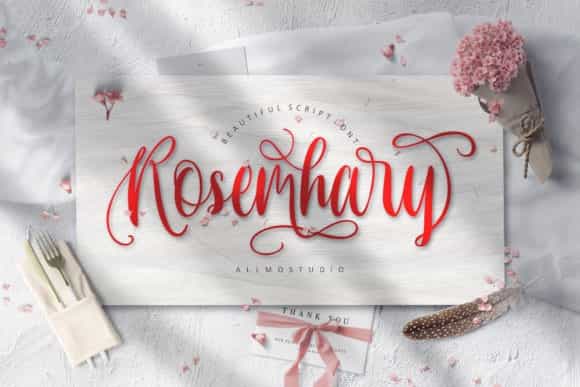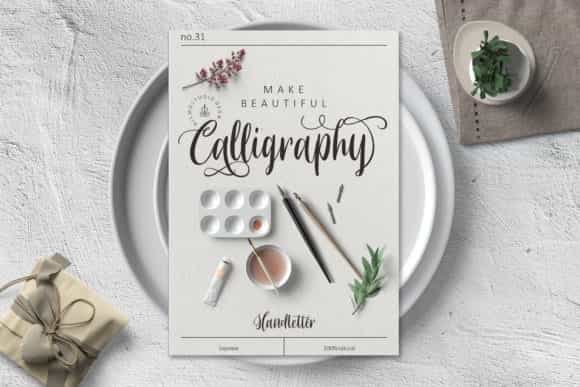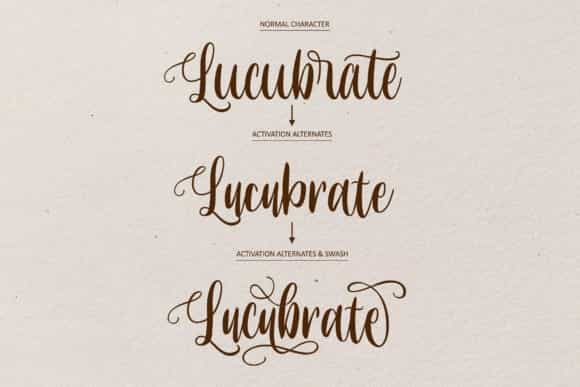
Rosemhary is a stylish and versatile script font with numerous alternative characters and OpenType features. Rosemary is best hand-lettered with a strong right slant. It is mostly used for invitations, branding and editorial design.